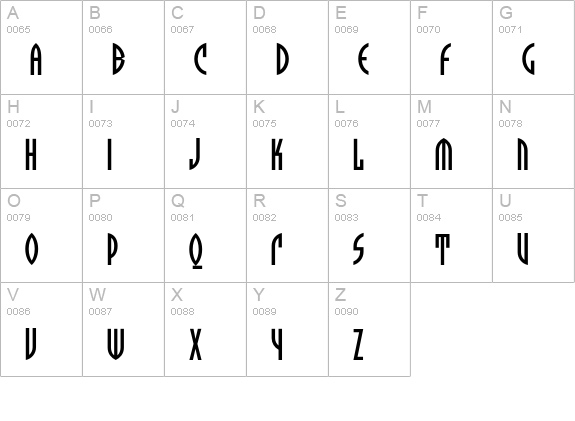
Tyson Font Details
Introducing Tyson, a stunningly versatile font that effortlessly combines elegance with a touch of modernity. Designed to captivate the eye, this typeface boasts a unique blend of sleek lines and bold curves, making it the ideal choice for a wide range of design projects. With its impeccable clarity and legibility, Tyson is perfect for any application, whether it be branding, editorial design, packaging, or web design. Its timeless appeal ensures that your message will be conveyed with utmost sophistication and impact, leaving a lasting impression on your audience. But what truly sets Tyson apart is its remarkable generosity. This font is available for free, allowing designers of all backgrounds and budgets to access its exceptional quality and craftsmanship. By making Tyson freely available to download at FontsMarket.com, we are empowering creatives to explore their full potential and bring their visions to life without any financial constraints. Whether you're a seasoned professional or just starting out, Tyson offers a seamless user experience with its wide range of weights and styles. From light and delicate to bold and commanding, this font provides endless possibilities for creating captivating and harmonious compositions that will stand the test of time. So why wait? Embark on your design journey with Tyson and experience the freedom of creativity that comes with this remarkable font. Download it for free today at FontsMarket.com and unlock a world of possibilities for your next design project.